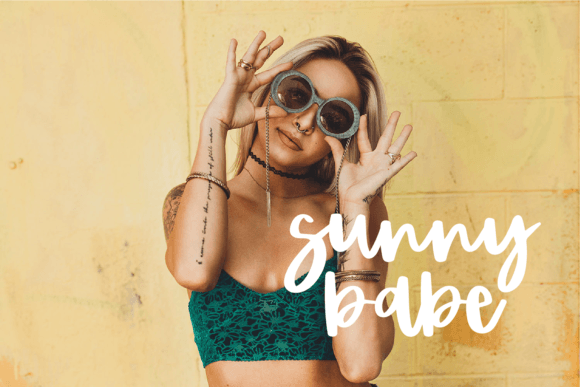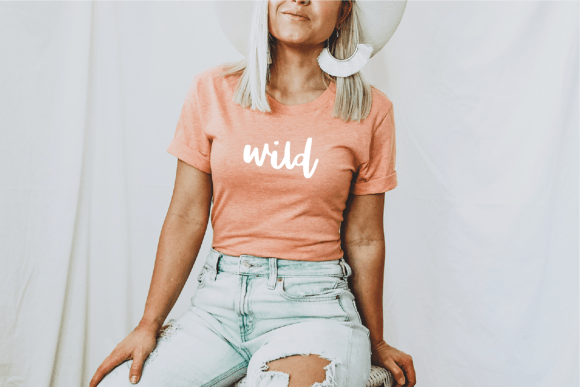
Bikini Babe Font: The Perfect Addition to Your Design Arsenal
Are you tired of using the same old fonts for your designs? Look no further than the Bikini Babe Font, also known as “BFC Bikini Babe”. This casual, bouncy brush font is perfect for adding a touch of whimsy to your social media graphics, crafts, and other creative projects. In this article, we’ll take a closer look at the features and benefits of the Bikini Babe Font, and explore how you can use it to take your designs to the next level.
What is the Bikini Babe Font?
The Bikini Babe Font is a whimsical brush font that is designed to add a playful touch to your designs. With its casual, bouncy feel, it’s perfect for creating social media graphics, crafts, and other creative projects that require a bit of personality. The font is part of the BFC (Brush Font Collection) and is designed to be easy to use and versatile.
Features of the Bikini Babe Font
The Bikini Babe Font comes with a range of features that make it perfect for designers and crafters. Some of the key features include:
- All caps glyphs: The font includes a range of all caps glyphs, making it perfect for creating bold and eye-catching designs.
- Numbers and basic punctuation marks: The font includes numbers and basic punctuation marks, making it easy to create complete and professional-looking designs.
- Intl characters: The font includes international characters, making it perfect for designers who work with clients from around the world.
Uses for the Bikini Babe Font
The Bikini Babe Font is a versatile font that can be used for a wide range of design projects. Some of the most popular uses for the font include:
- Branding: The font is perfect for creating bold and eye-catching brand logos and marketing materials.
- Crafts and decor: The font is perfect for creating handmade crafts and decor, such as signs, banners, and other home decor items.
- Invitations: The font is perfect for creating fun and playful invitations for parties, events, and other special occasions.
- Social media graphics: The font is perfect for creating eye-catching social media graphics, such as Facebook posts, Instagram stories, and Twitter headers.
Benefits of Using the Bikini Babe Font
There are many benefits to using the Bikini Babe Font in your designs. Some of the key benefits include:
- Unique and playful look: The font adds a unique and playful touch to your designs, setting them apart from more traditional fonts.
- Easily readable: The font is easy to read, even in smaller sizes, making it perfect for creating designs that need to be legible.
- Versatile: The font can be used for a wide range of design projects, from branding and marketing materials to crafts and social media graphics.
Tips for Using the Bikini Babe Font
Here are a few tips for getting the most out of the Bikini Babe Font:
- Experiment with different colors: The font looks great in a range of colors, so don’t be afraid to experiment and find the perfect color for your design.
- Use it with other fonts: The Bikini Babe Font pairs well with other fonts, so try using it with a bold font for headings and a more traditional font for body text.
- Don’t be afraid to get creative: The font is designed to be playful and fun, so don’t be afraid to get creative and try out new and interesting design ideas.
| Author | blushfontco |
The Bikini Babe Font is a versatile and fun font that is perfect for designers and crafters who want to add a playful touch to their designs. With its casual, bouncy feel and range of features, it’s perfect for creating social media graphics, crafts, and other creative projects. Whether you’re looking to create bold and eye-catching brand logos or fun and playful invitations, the Bikini Babe Font is a great choice. So why not give it a try and see how it can help take your designs to the next level?